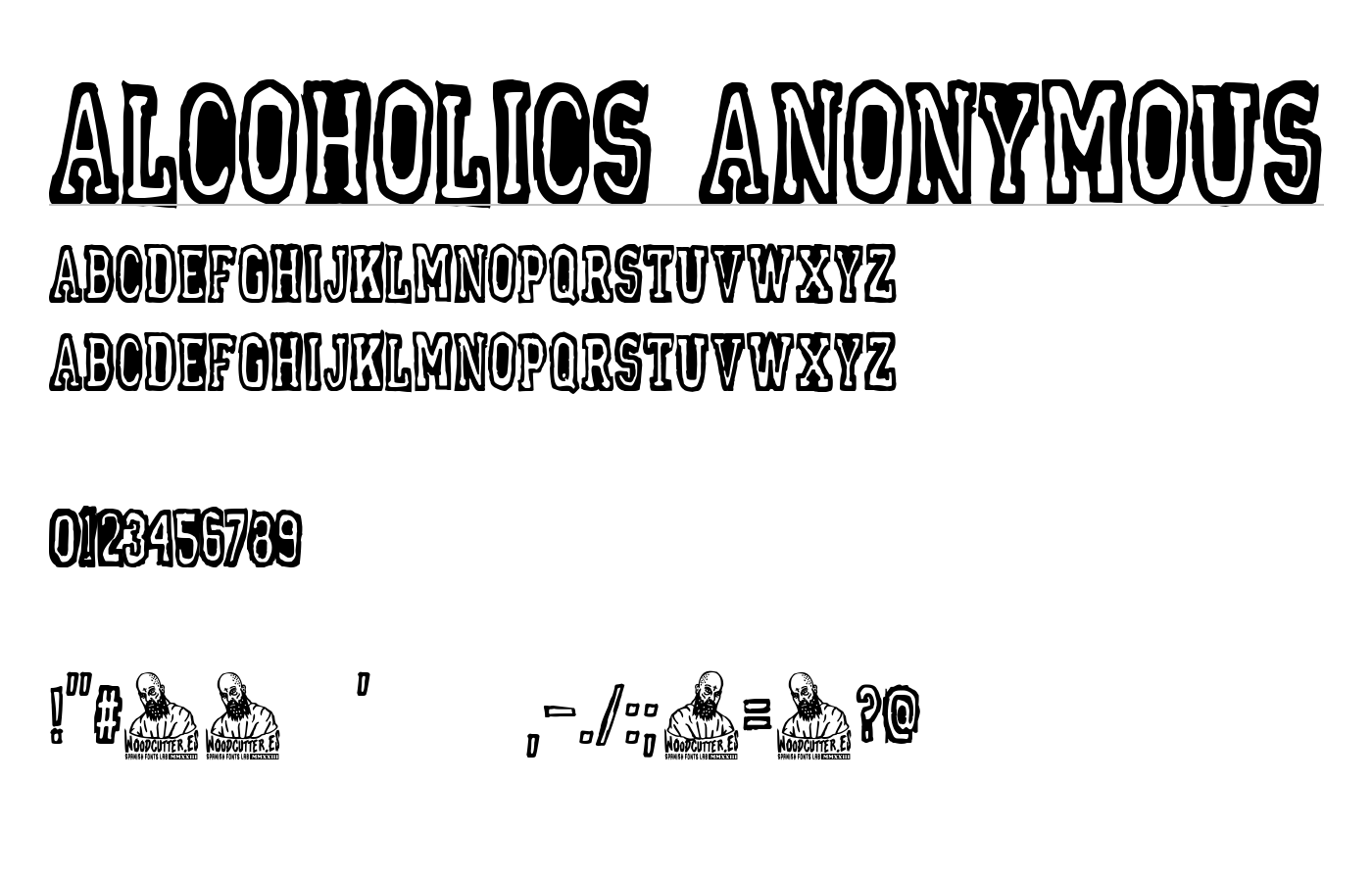
Alcoholics Anonymous is a bold, condensed slab serif font with a rough, hand-drawn texture that gives it a rugged, vintage feel. Its distinct uneven edges and strong serifs evoke an old western or retro poster style, making it perfect for eye-catching headlines, signage, and branding that need a tough, authentic character. This font shines in designs aiming for a nostalgic or rebellious vibe where personality and impact are key.
Alcoholics Anonymous Font
About Alcoholics Anonymous Font